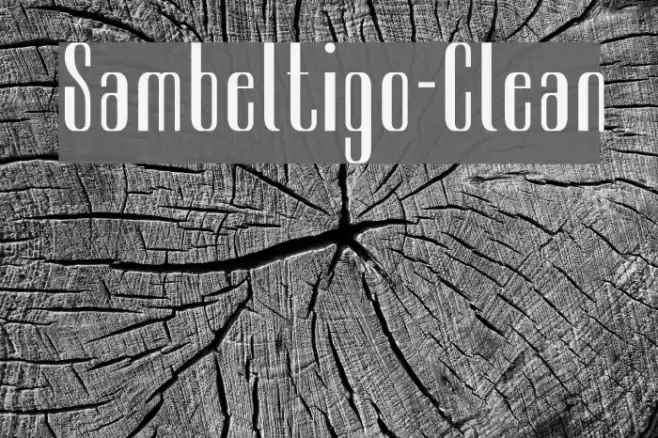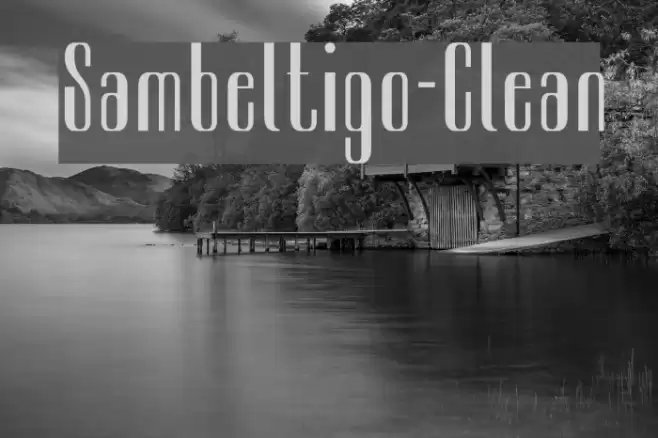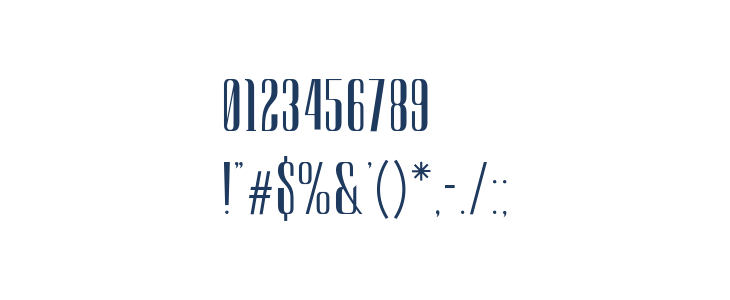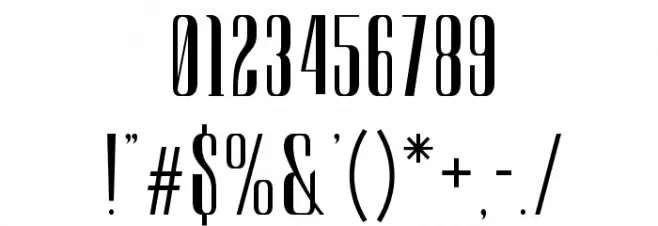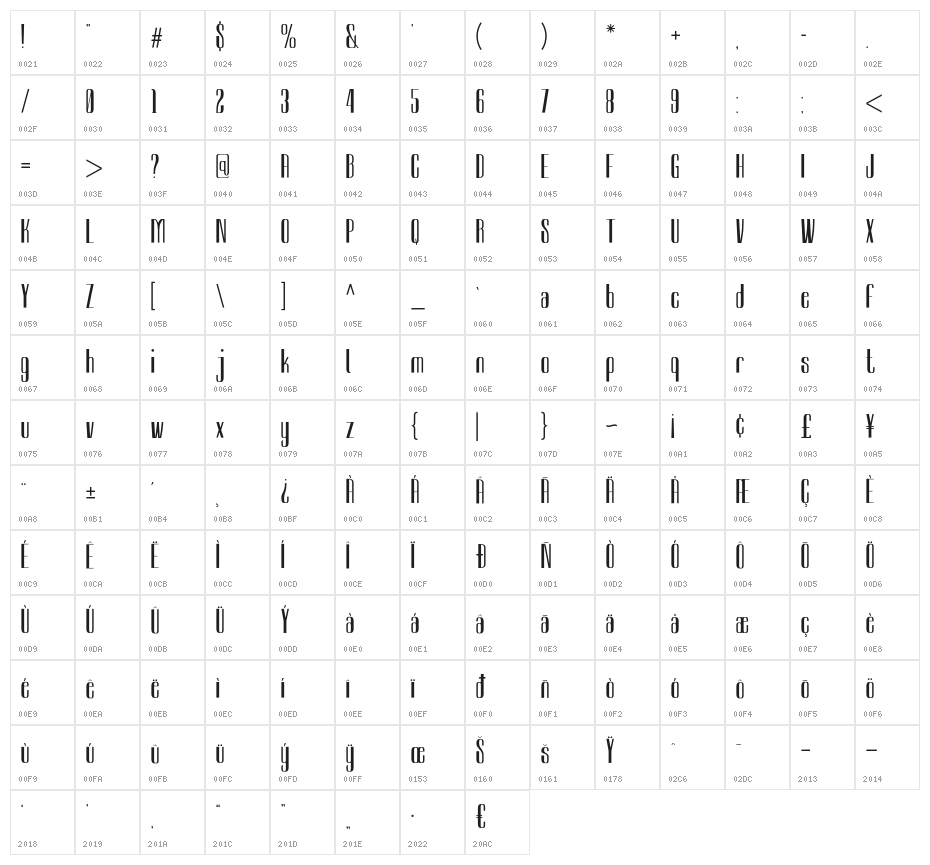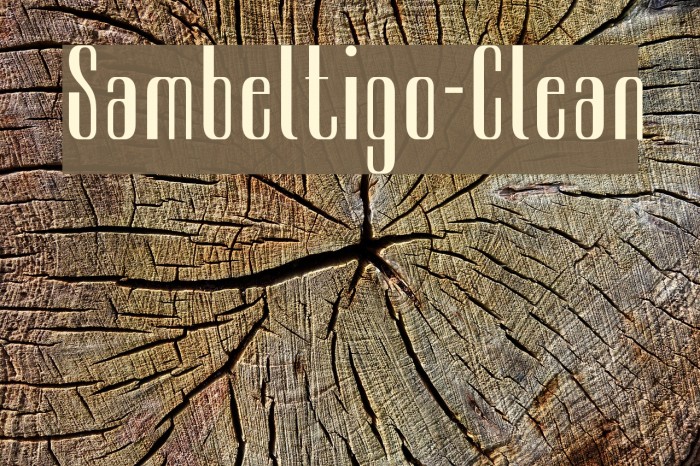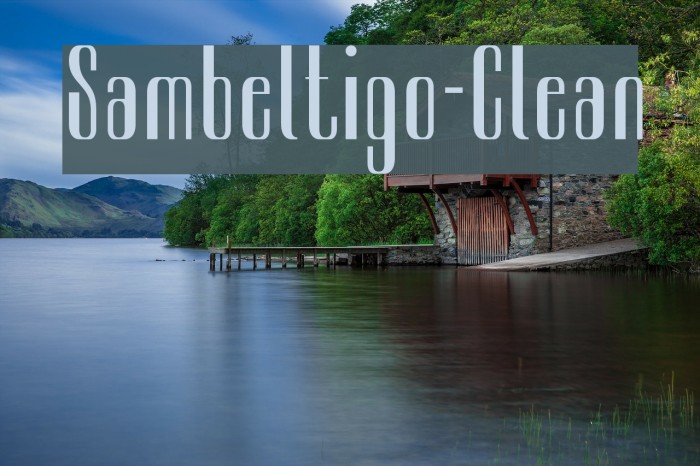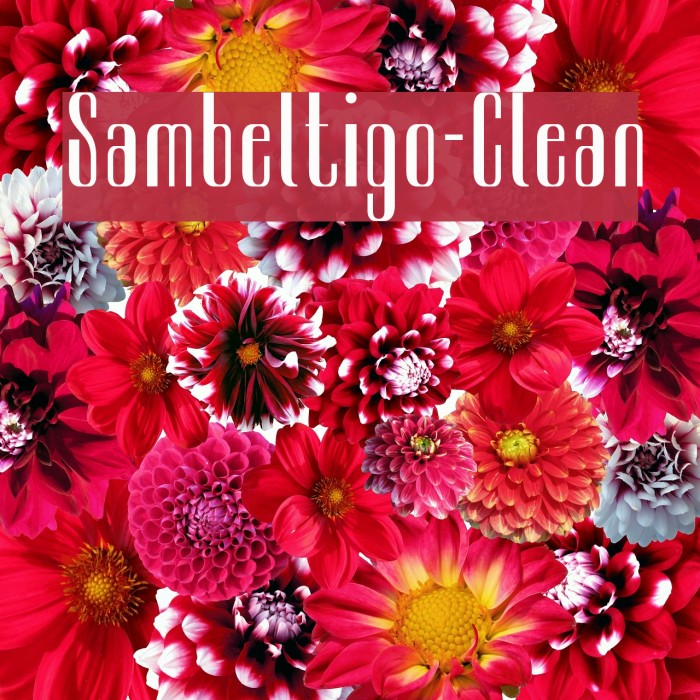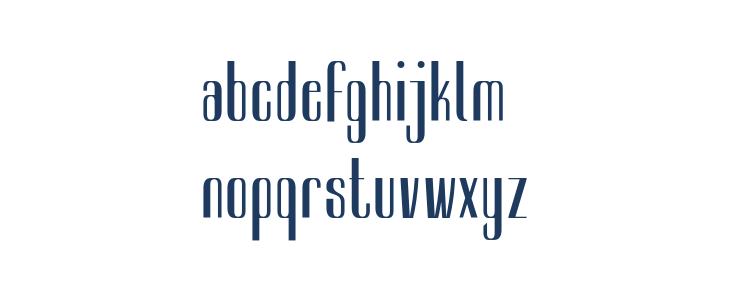
Sambeltigo-Clean Font
Sambeltigo-Clean Description
This font features a tall, narrow design with a modern and sleek appearance. The characters are elongated with a consistent vertical emphasis, giving it a distinctive and sophisticated look. The uppercase letters are particularly striking, with sharp angles and clean lines, while the lowercase letters maintain a similar aesthetic with slightly softer curves. The numerals are uniform and align well with the overall style, providing a cohesive appearance. Special characters are designed to match the font's elegant and contemporary feel, making it suitable for a variety of applications.
A tall, narrow font with a modern and sleek design from Uncategorized fonts.
- Proposed Projects: Ideal for fashion magazines, luxury branding, modern posters, and editorial headlines.